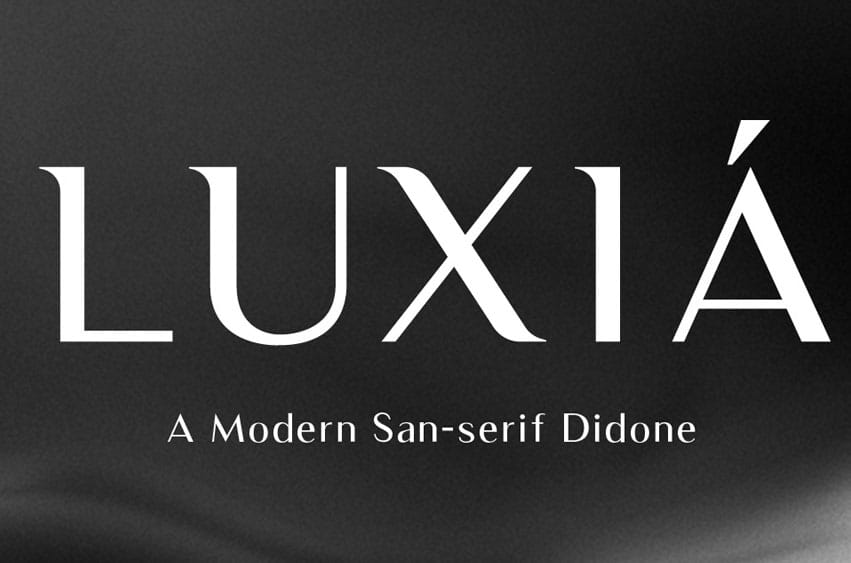
Luxia Font is a San serif font with profitability and detailed ornamentation of the characters.
This Commercial Use Typeface comes in five varieties: Luxia Display type includes Oblique Medium and Oblique Display Medium, followed by Medium Oblique, and Oblique Medium Display.